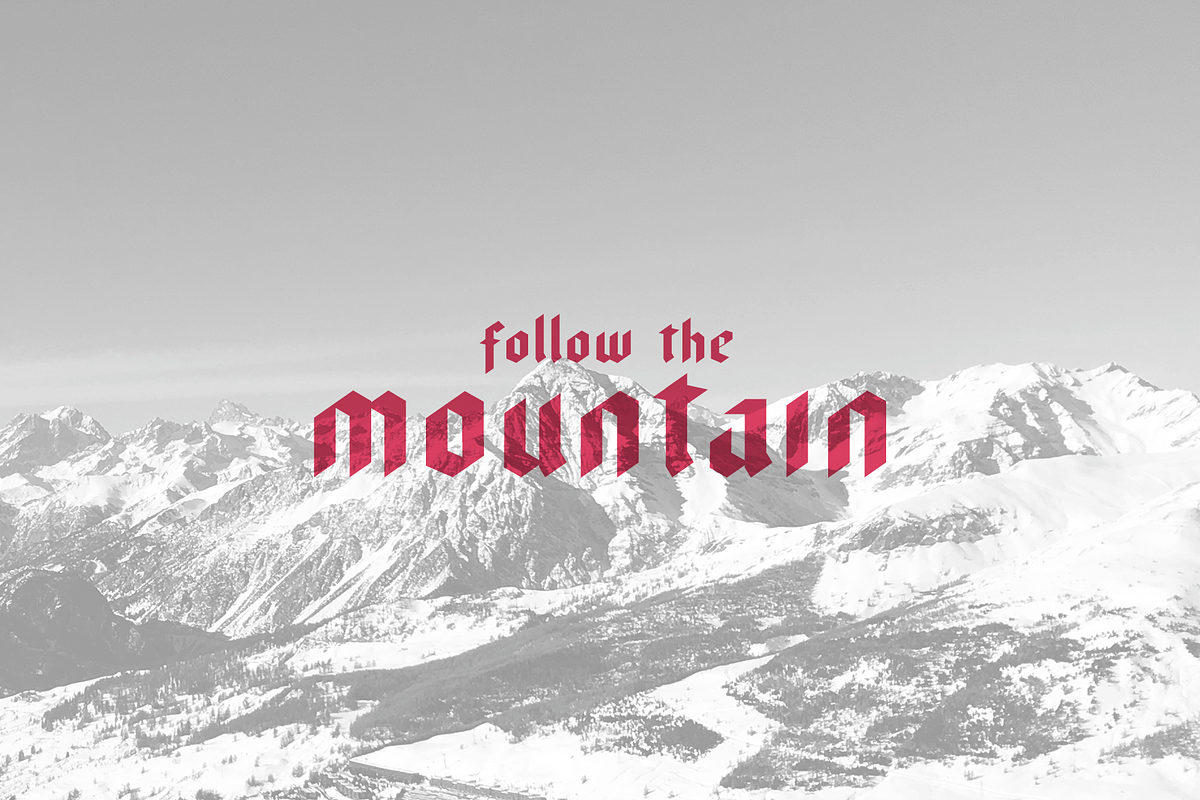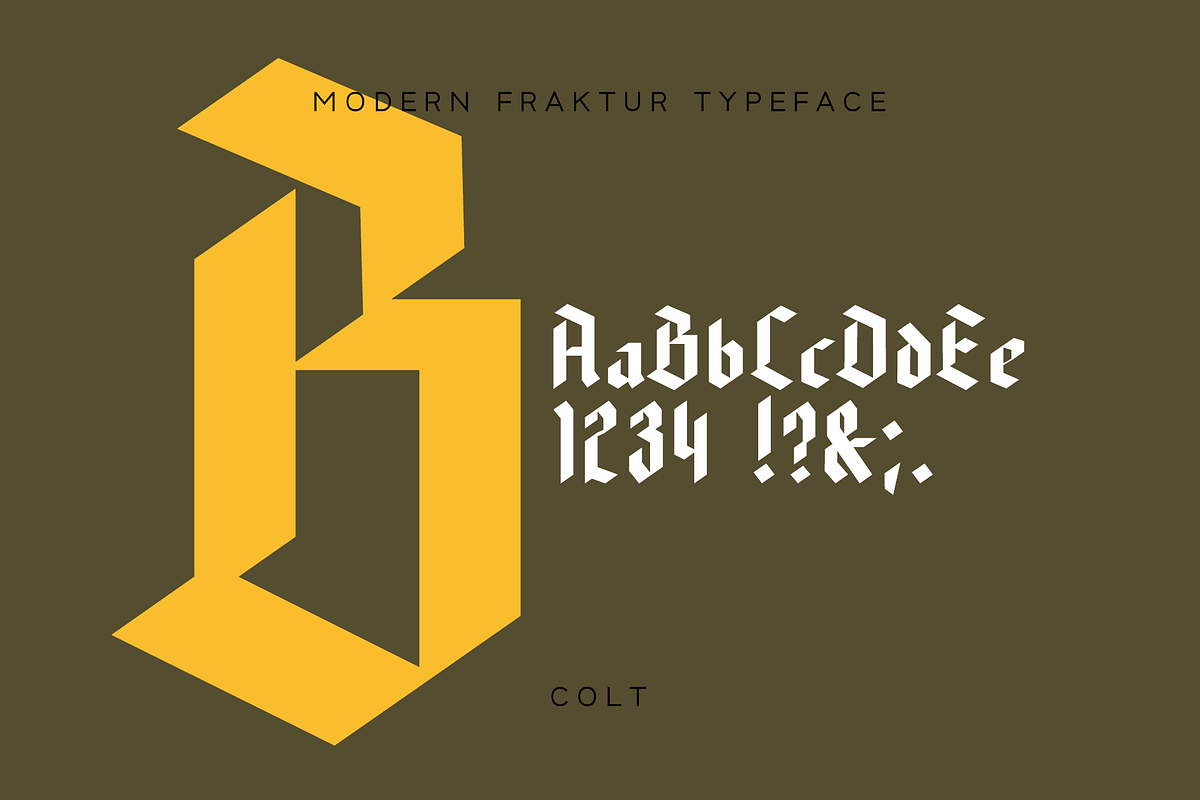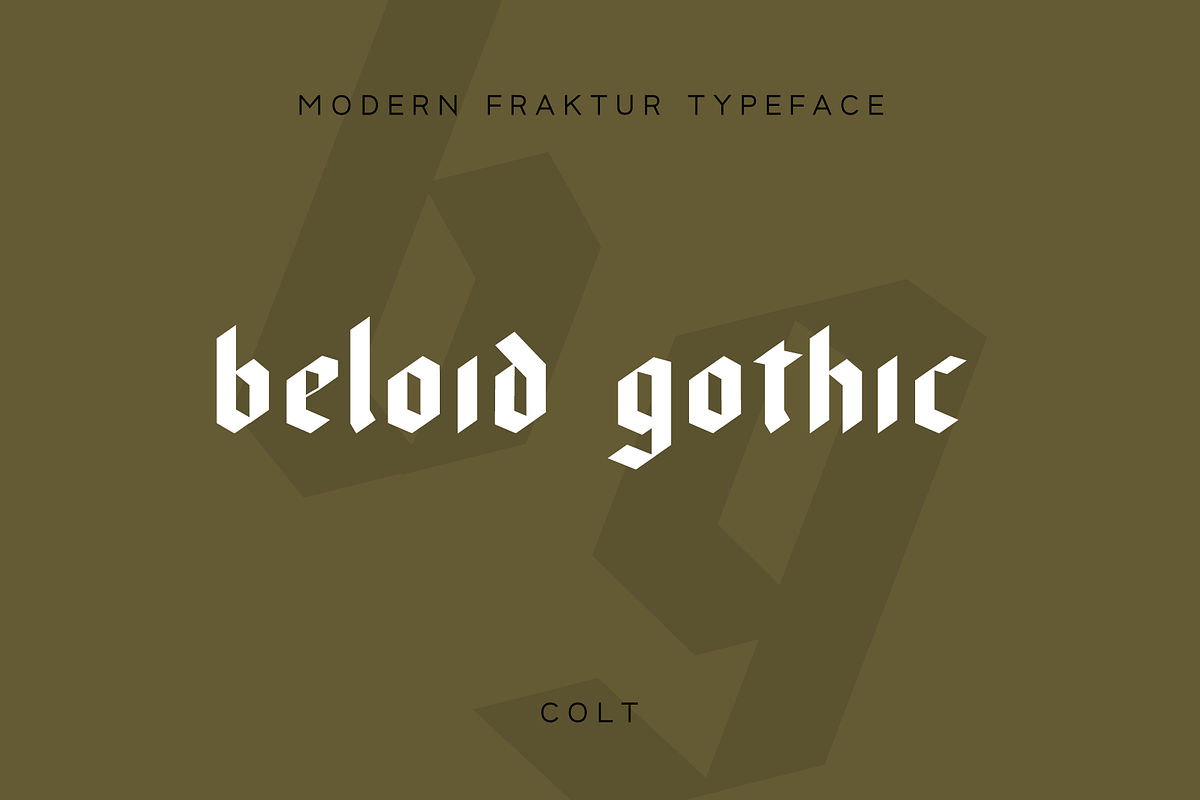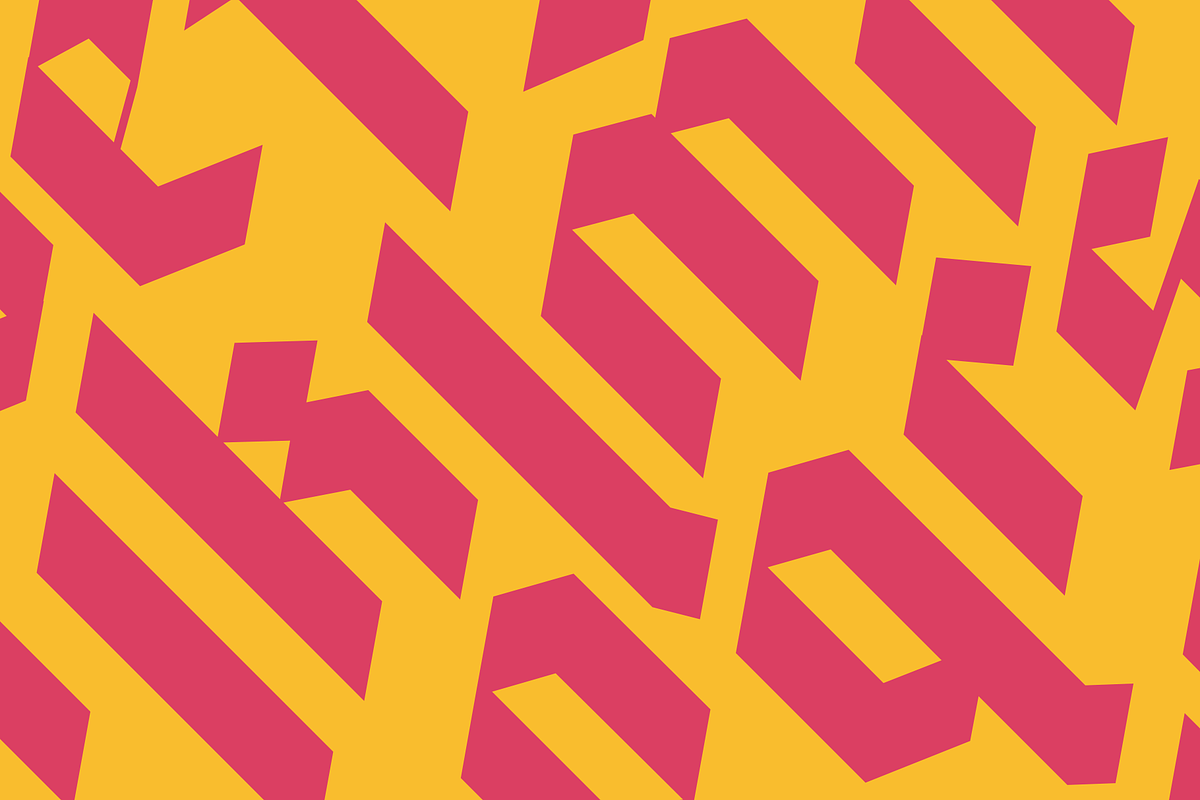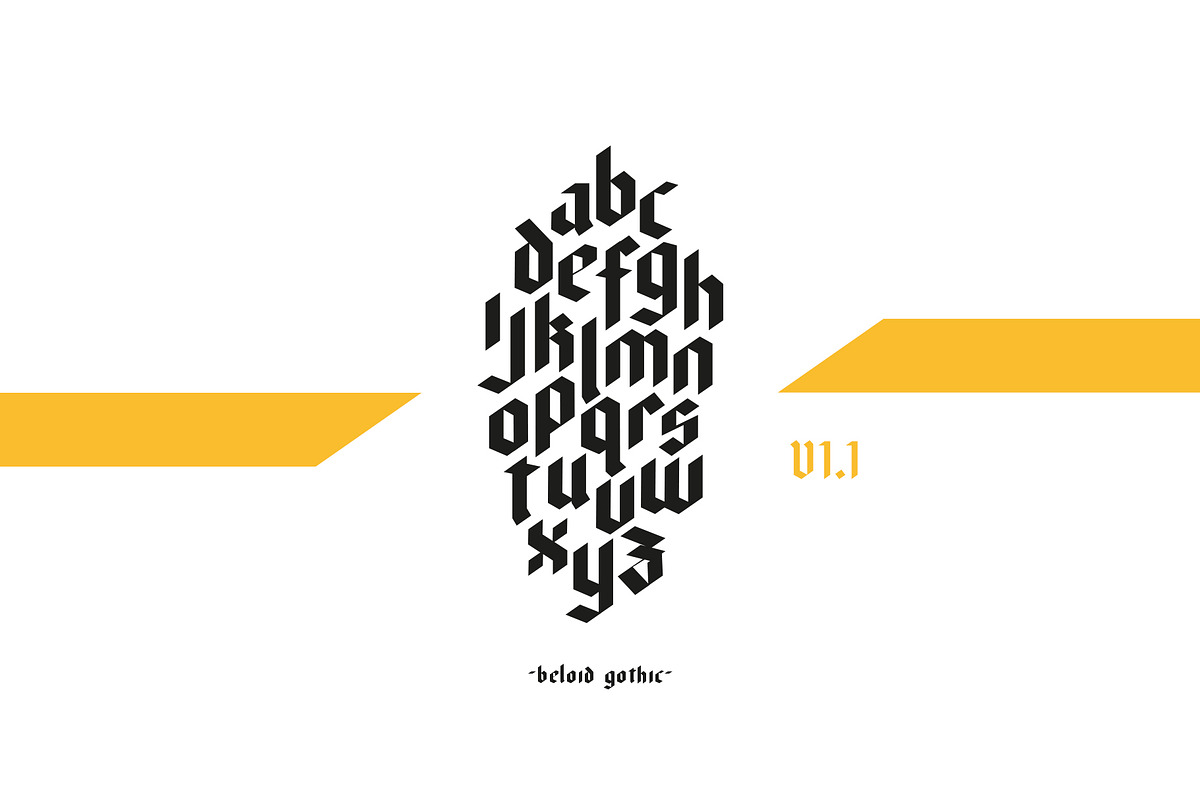
Beloid Gothic Modern Blackletter Font
Beloid Gothic - A Modern Blackletter Typeface
Beloid - having a shape like that of an arrow
Beloid Gothic is a modern blackletter typeface. Strong and geometric with a fraktur style using a 35 degree angled nib. Taking inspiration from medieval scriptures, Beloid was designed with bold titles and logotype in mind.
This statement font can be used for posters, magazines and to create logos.
Full European character set
Beloid pairs well with simple typefaces such as Gotham and Adget Sans -
- This set includes uppercase and lowercase letters, numerals, a range of punctuation and full European character set.